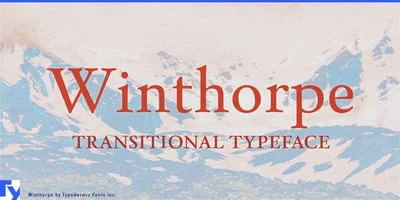
Winthorpe Font
Winthorpe Font is perfect for luxury hotel branding, prestigious law firm letterheads, exclusive country club materials, high-end financial services, aristocratic estate signage, premium wine labels, distinguished university publications, and elite private banking communications.
This font is exciting because it embodies aristocratic refinement and old-money elegance with its distinguished letterforms that convey centuries of tradition and prestige. The Winthorpe Font instantly elevates any text to gentleman's club status, making communications feel exclusive, trustworthy, and worthy of the most discerning clientele who appreciate timeless sophistication.
The Winthorpe Font family includes refined aristocratic variations such as Regular, Bold, Light, Italic, Small Caps, Condensed, Extended, and Heritage versions, providing luxury brand designers with comprehensive typographic tools to create authentic upper-class communications that resonate with affluent audiences.
Command respect with Winthorpe Font that brings distinguished elegance to every premium design project. This exceptional typeface combines British aristocratic heritage with contemporary luxury appeal, making it ideal for brands serving elite markets and sophisticated clientele. The font's noble character design ensures your message conveys exclusivity and established authority while maintaining impeccable readability. Whether you're creating luxury brand identities, designing prestigious institutional materials, or developing high-end marketing communications, Winthorpe Font delivers the distinguished typography that speaks to wealth, tradition, and uncompromising quality. Its timeless design maintains aristocratic gravitas across all media while establishing the credibility and prestige that luxury consumers expect from truly exceptional brands.